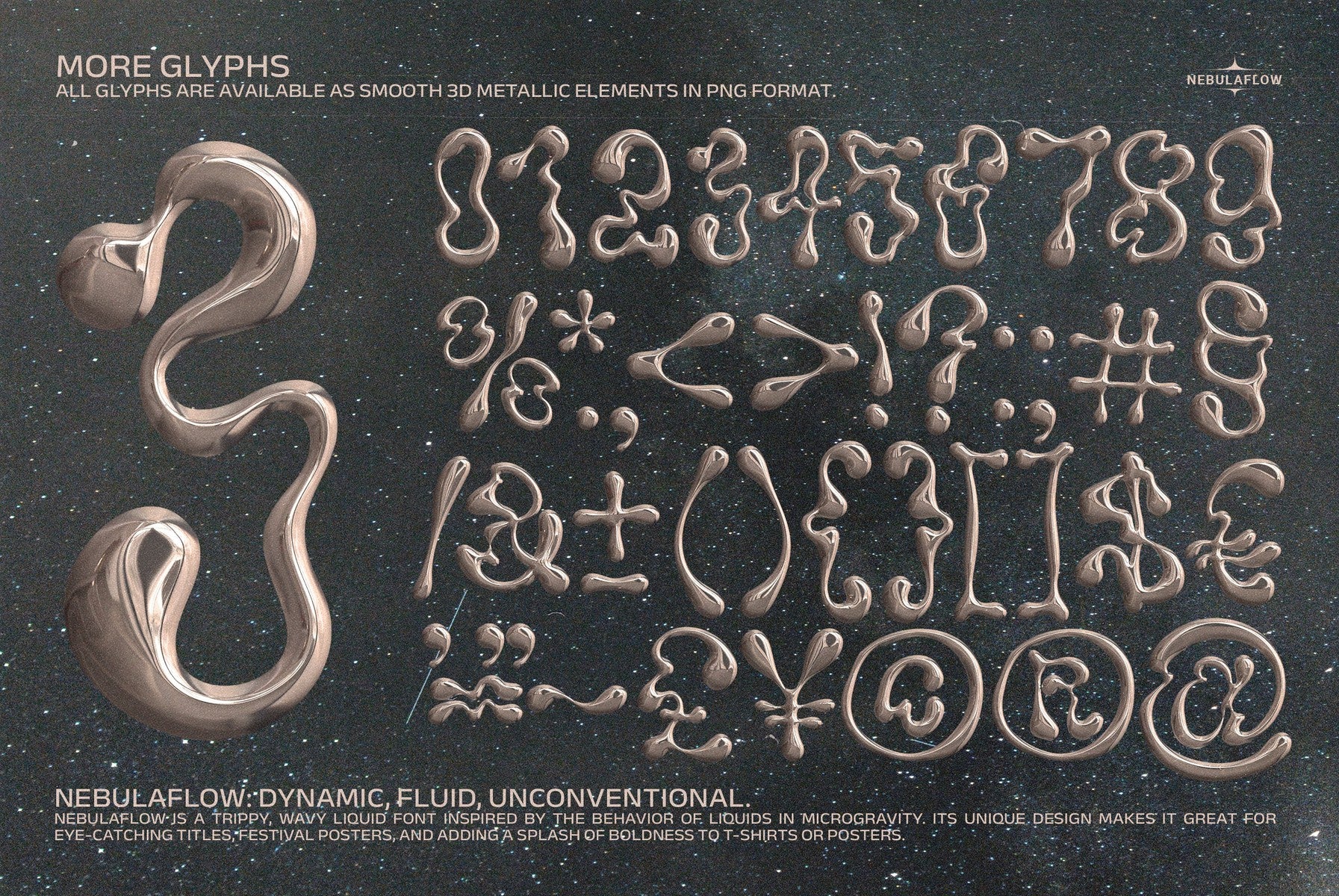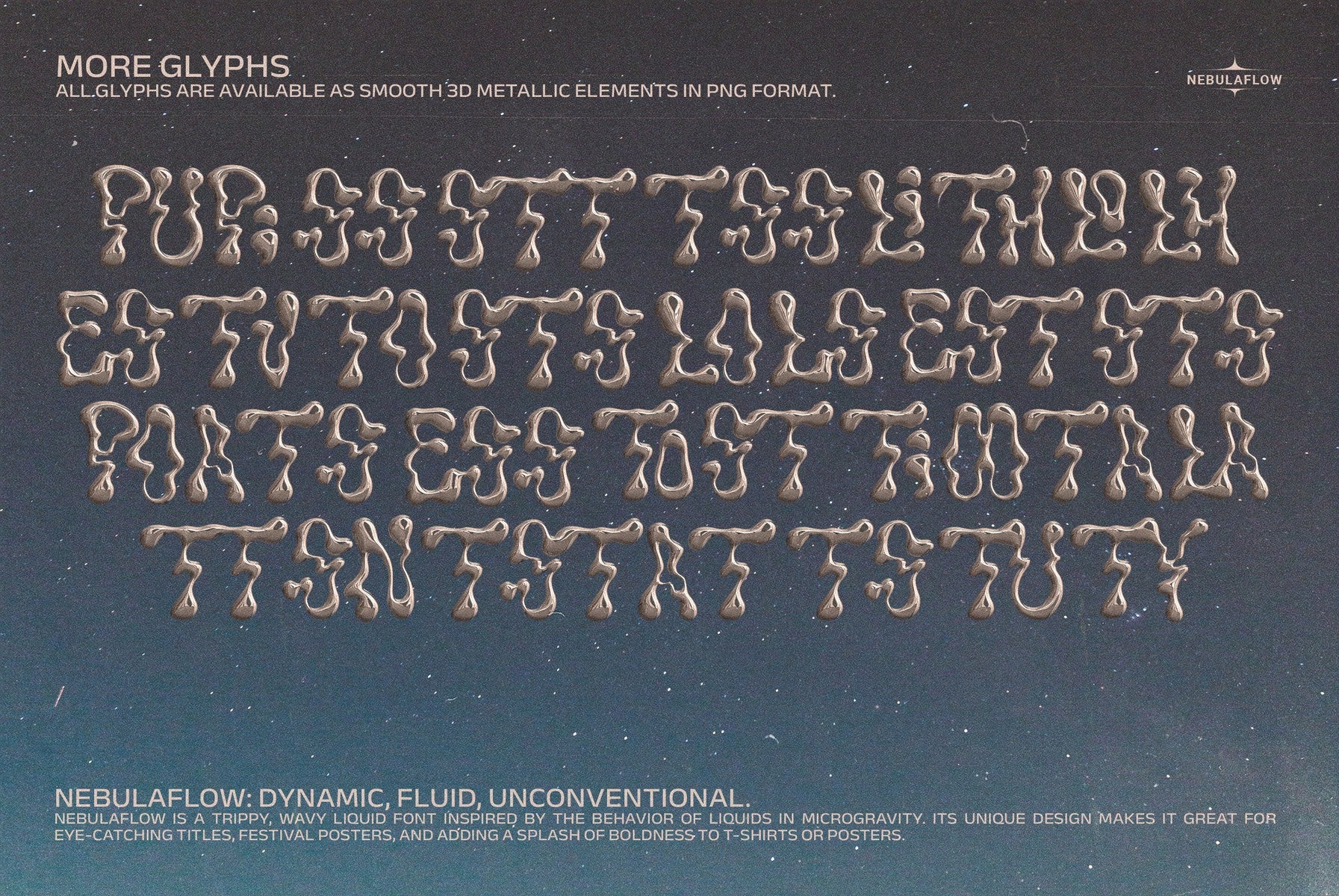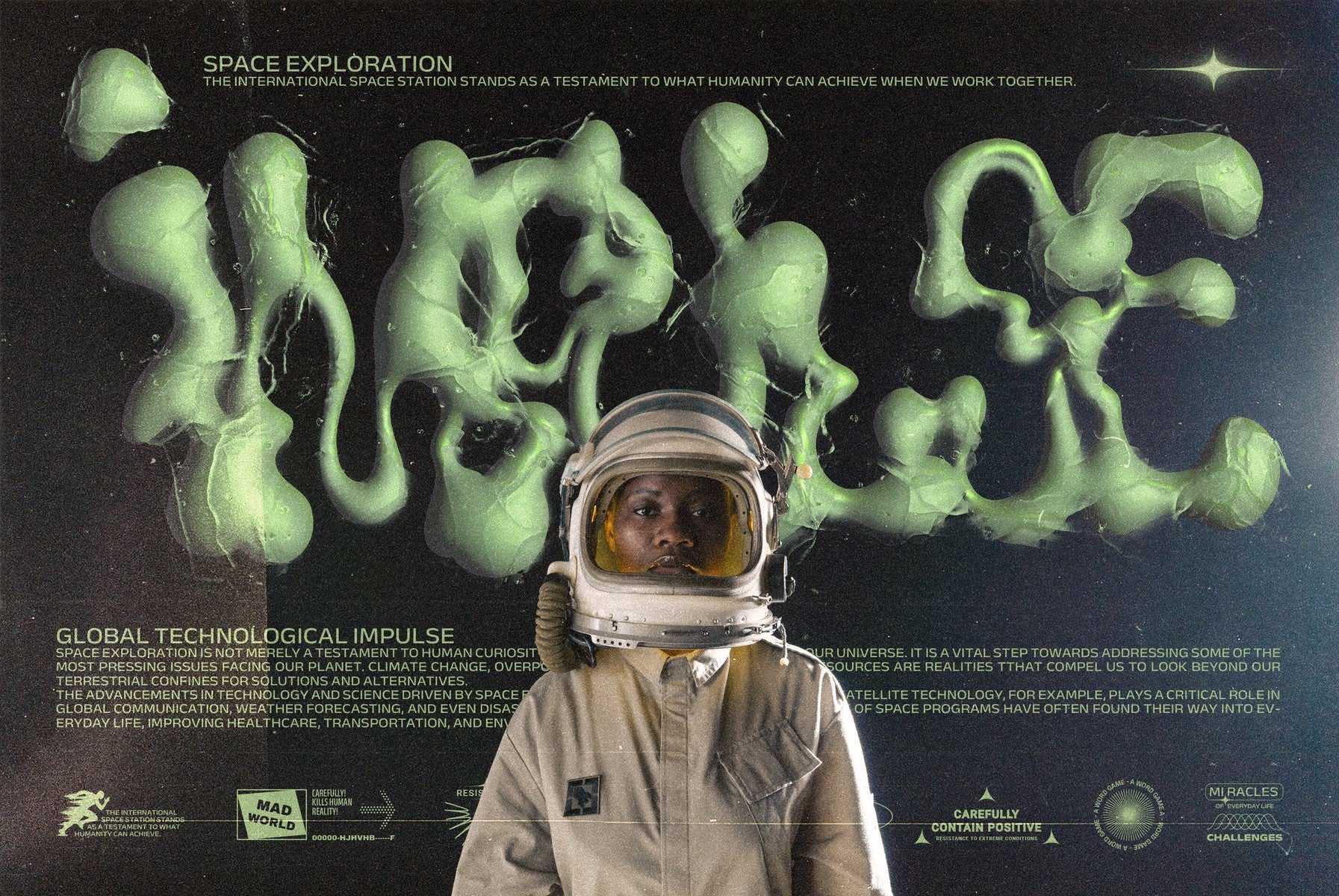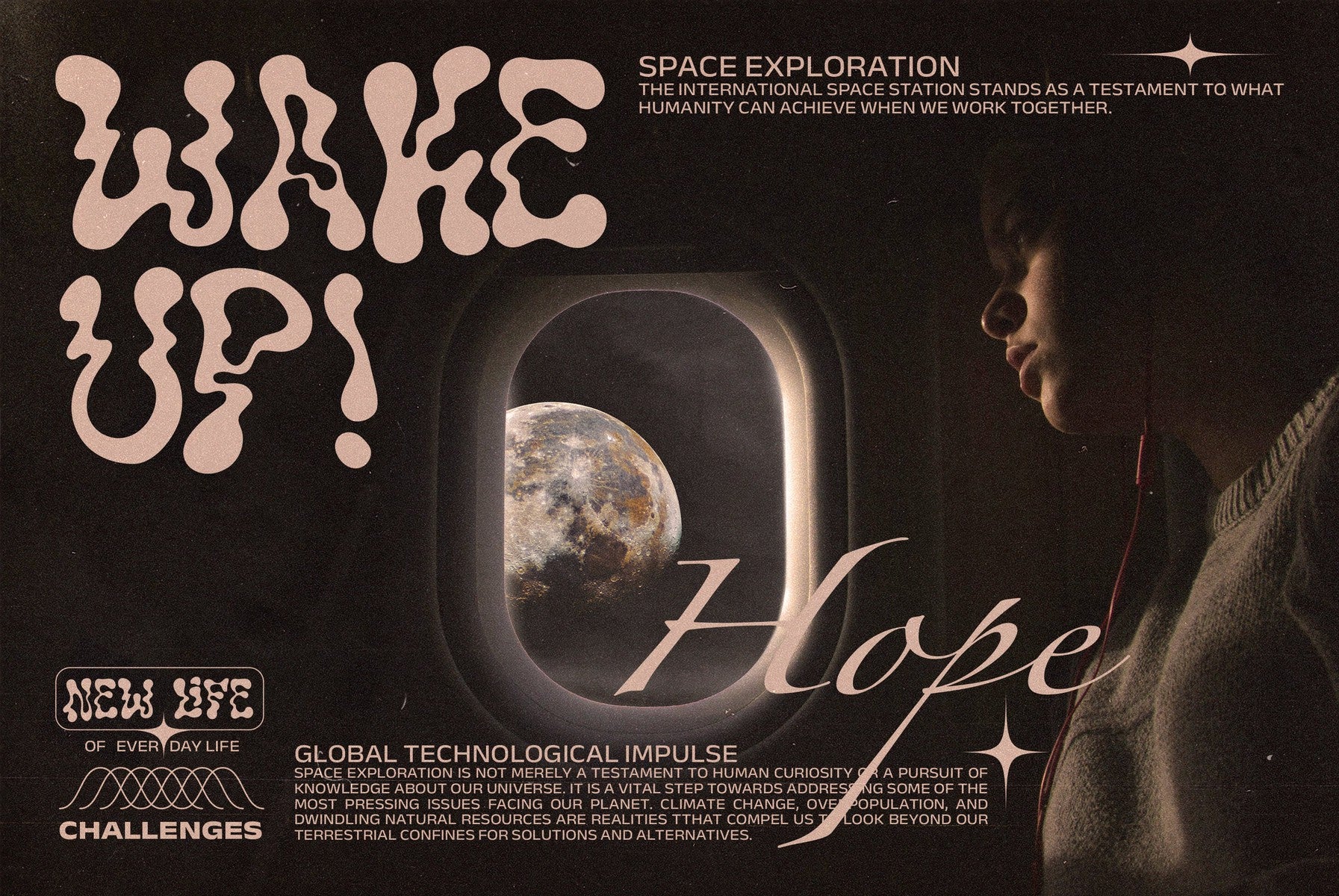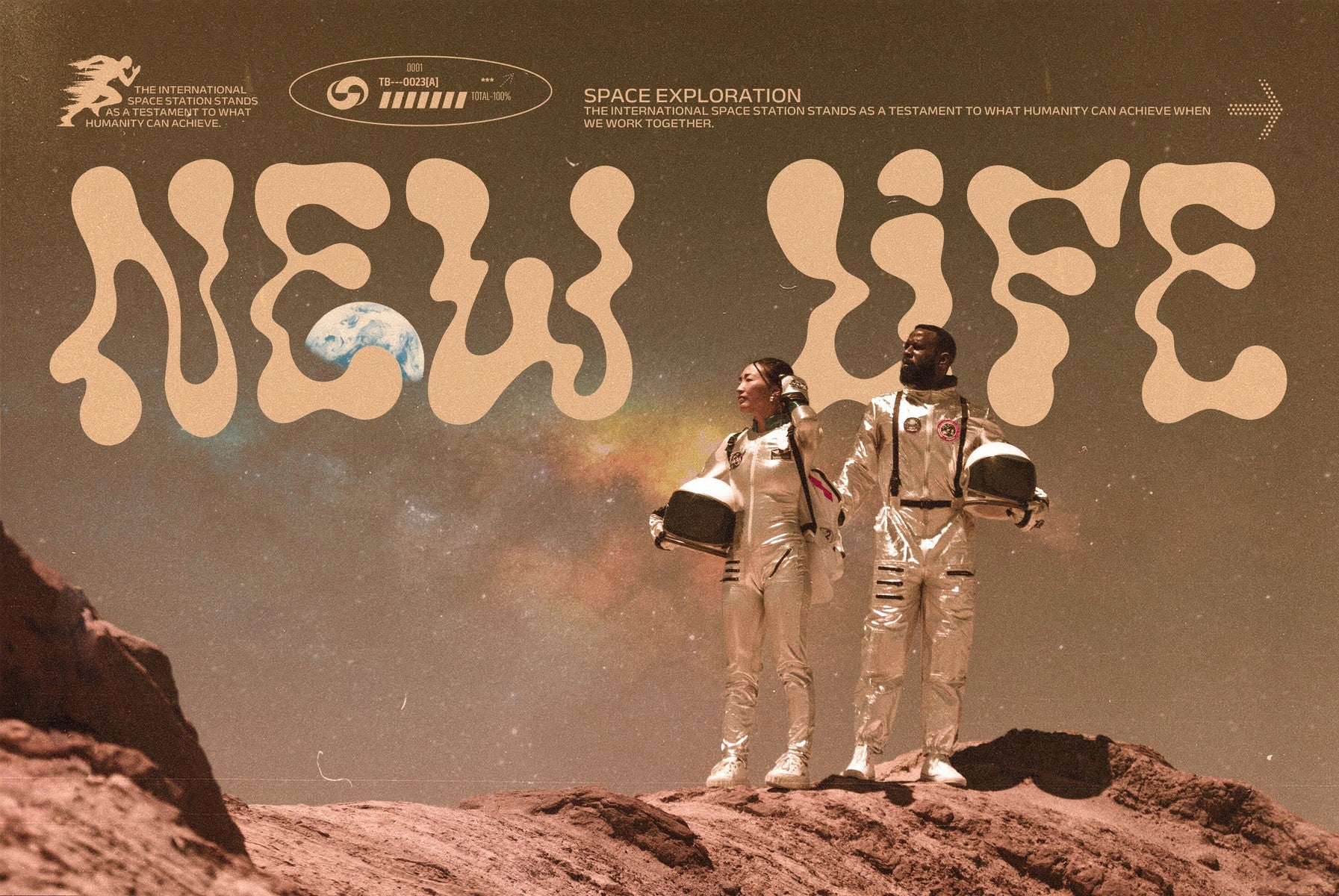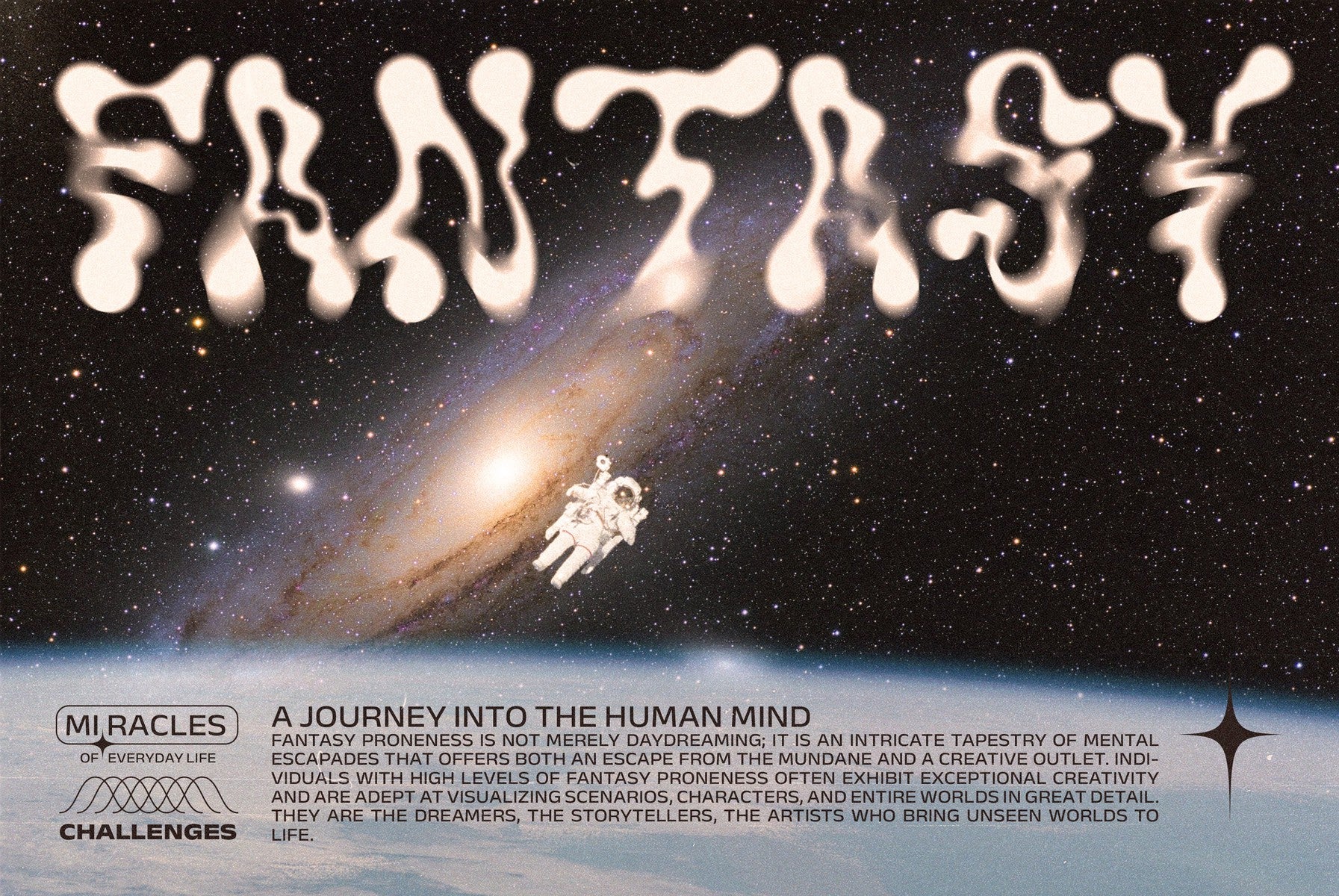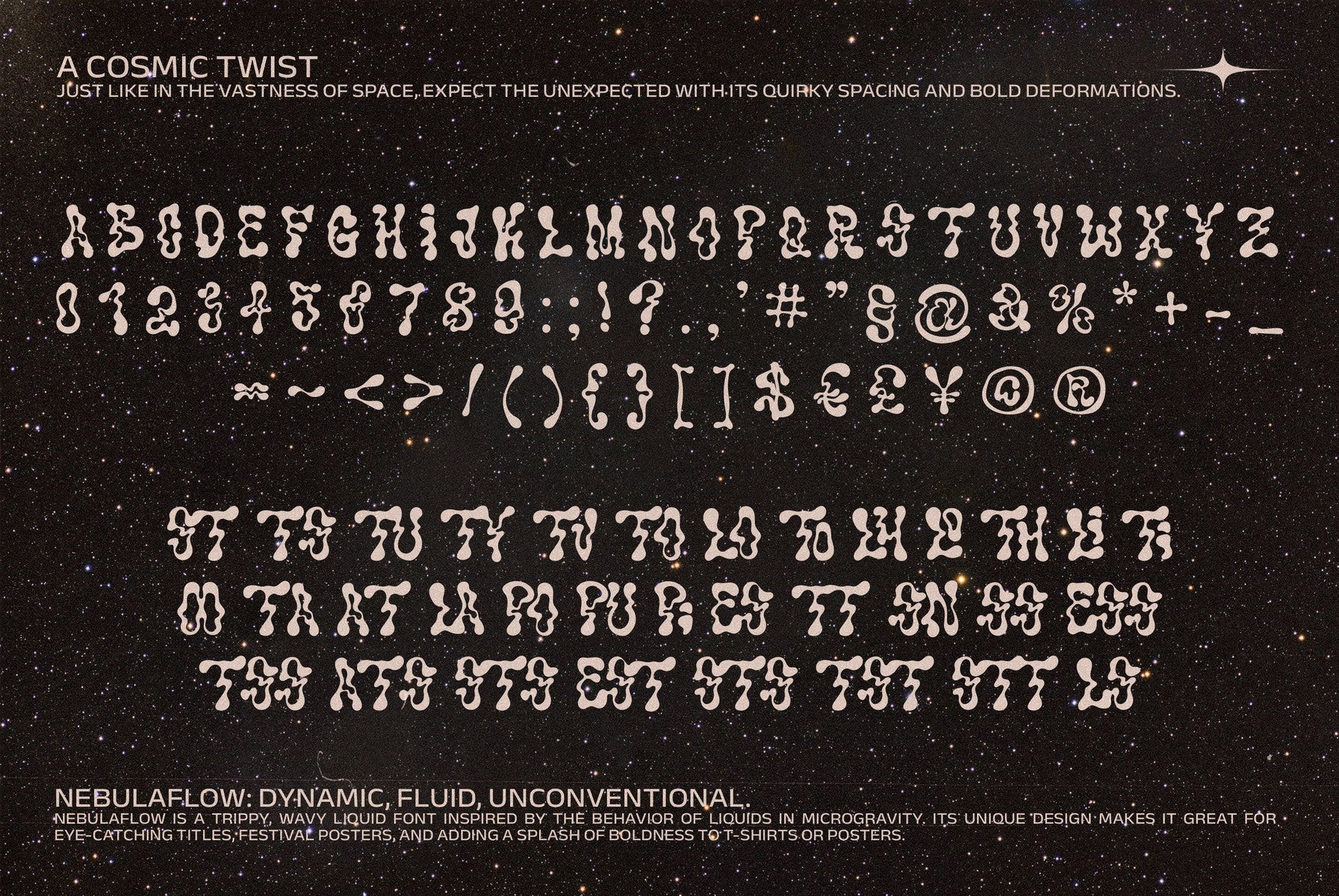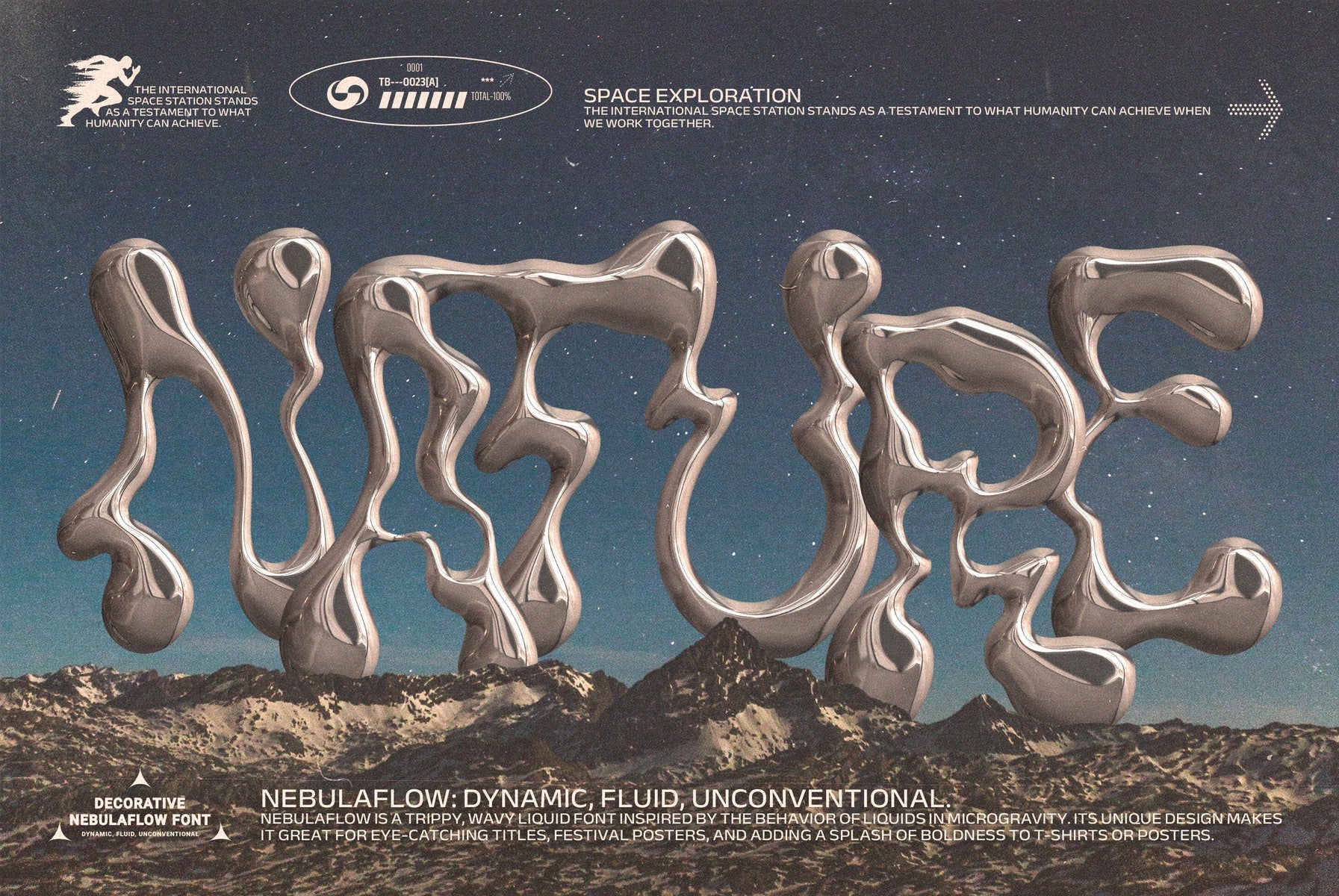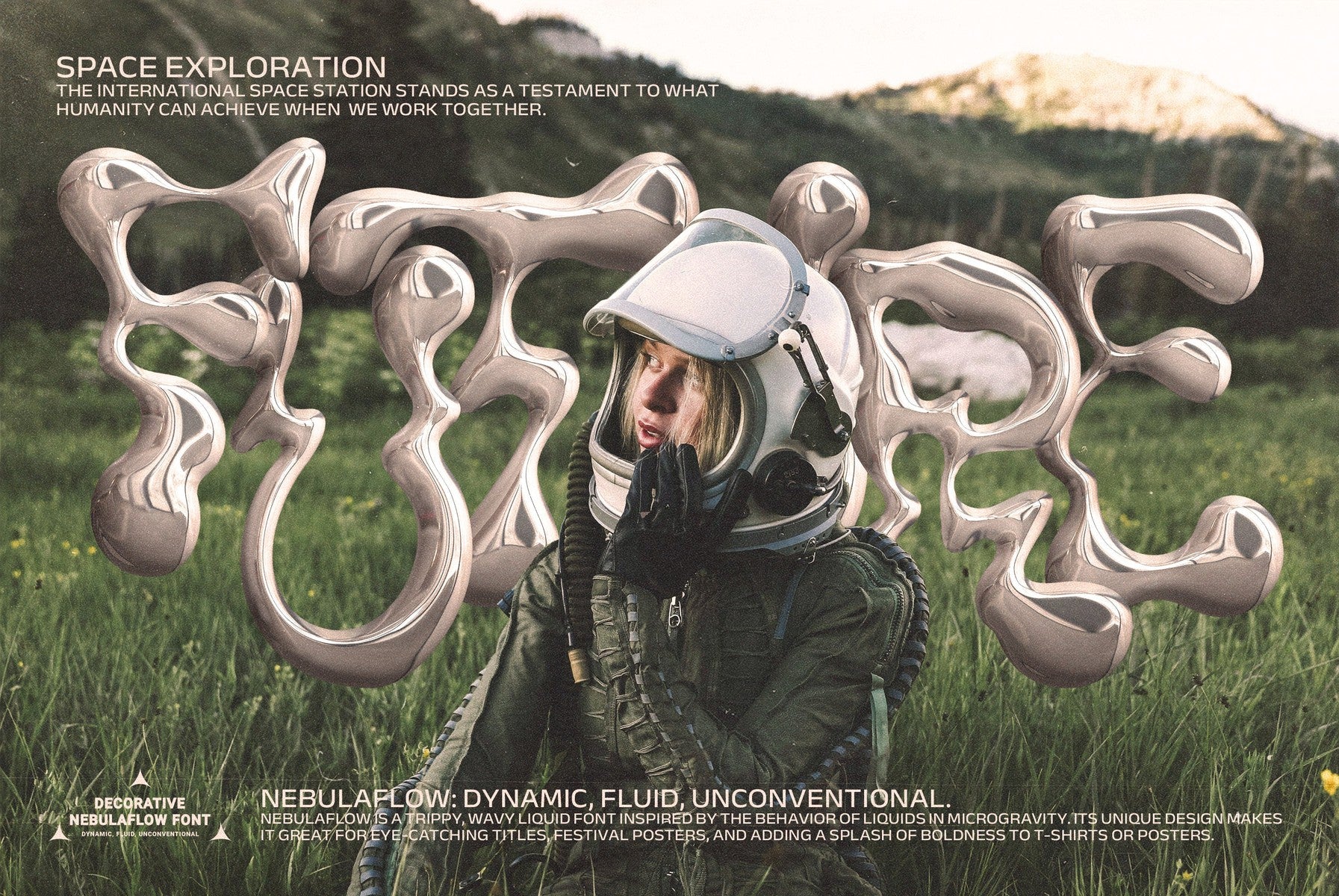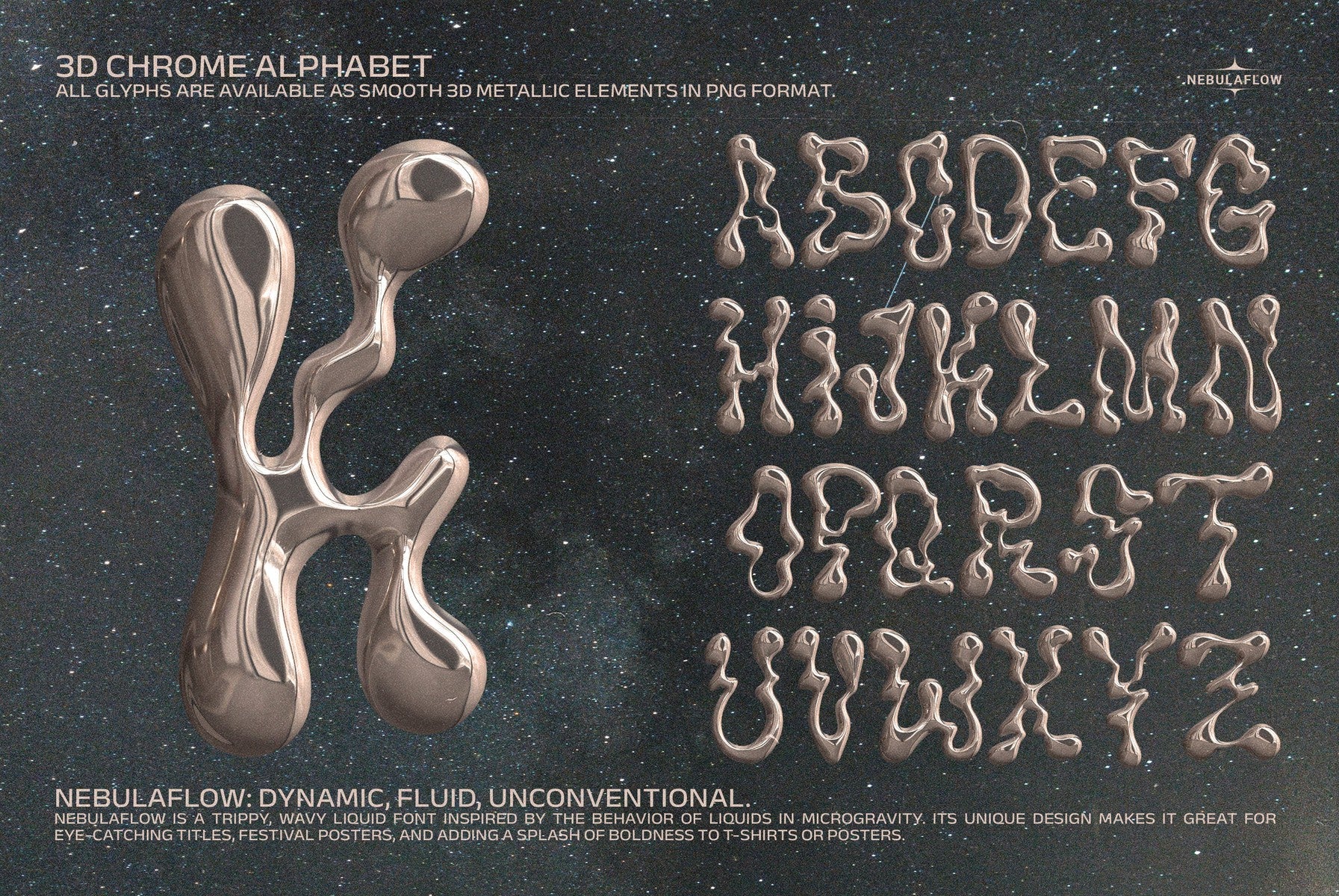
The Nebula Flow Font - Chrome Typeface
The Nebula Flow Font - Chrome Typeface is a unique, liquid-inspired font that offers a fresh, experimental design. The product includes OTF, TTF, and WOFF files, 102 PNG chrome letters, a PSD file with all 3D chrome letters, and a PDF preview.
Ideal for experimental typography and contemporary graphic design. Perfect for eye-catching titles, festival posters, and dynamic apparel designs, ensuring a unique and bold visual impact that stands out in any creative project.